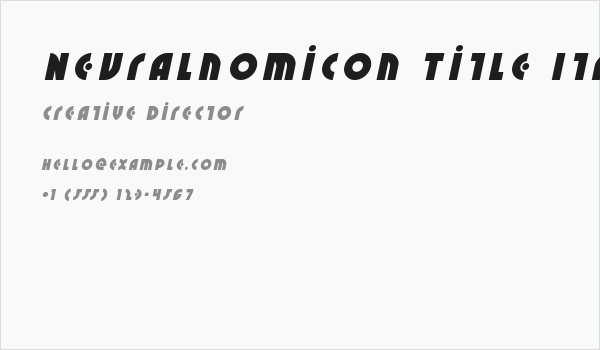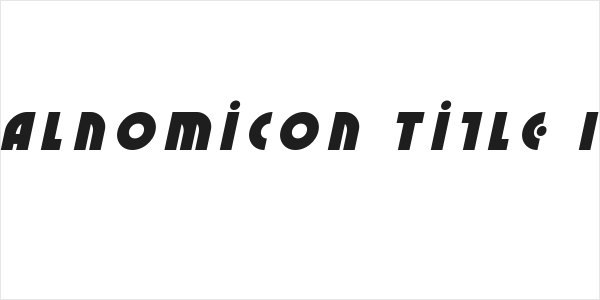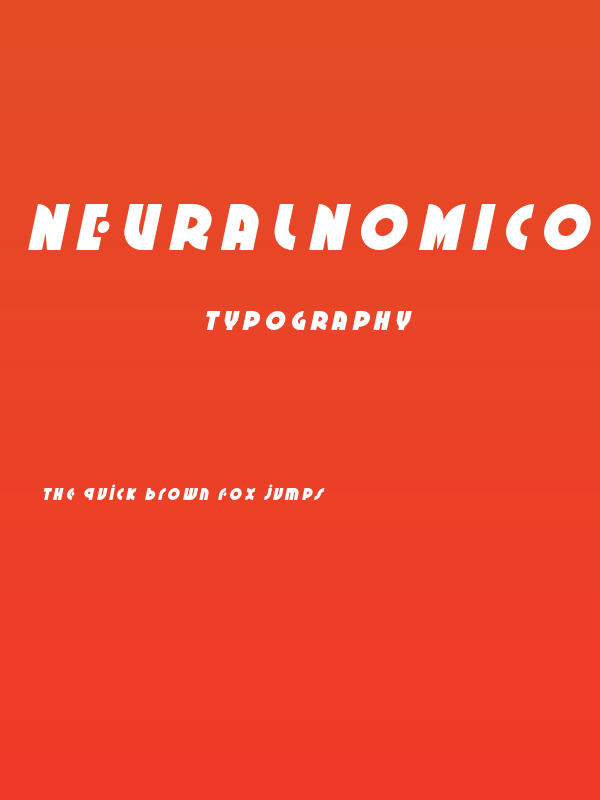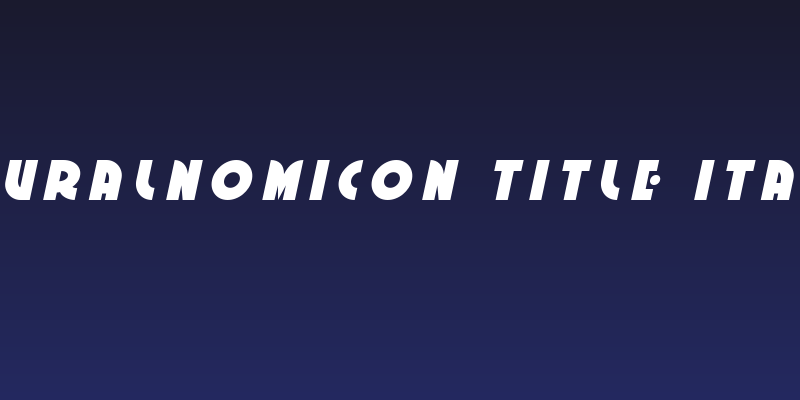
Neuralnomicon Title Italic Font
Neuralnomicon Title Italic Description
This font features a bold and dynamic style with a futuristic flair. The characters are italicized, giving a sense of motion and energy. The strokes are thick and consistent, providing a strong visual impact. The design includes unique curves and angles, particularly noticeable in letters like 'G', 'S', and 'Z', which add a distinctive character to the typeface. The numerals and special characters maintain the same boldness and style, ensuring uniformity across all glyphs. This font is perfect for projects that require a modern and assertive look.
| Proposed Projects | Ideal for sci-fi themed posters, video game titles, tech branding, and futuristic designs. |